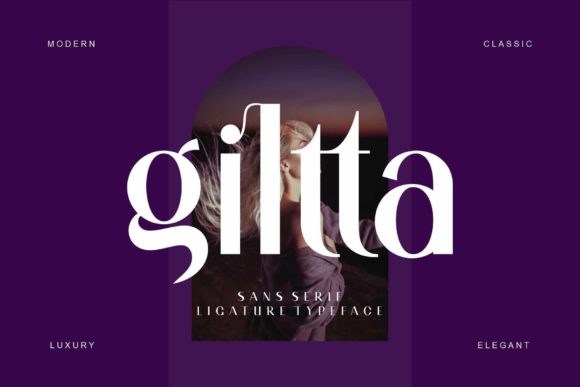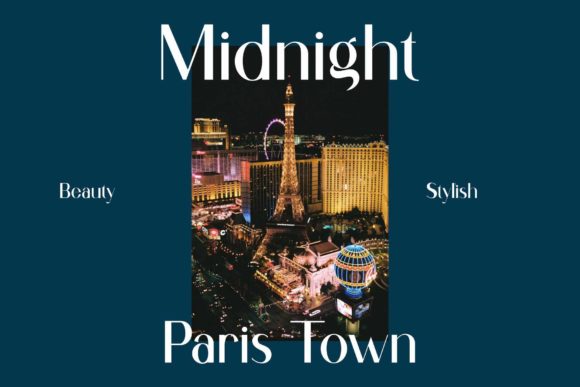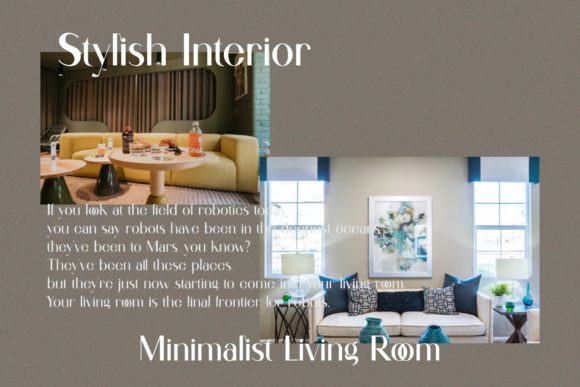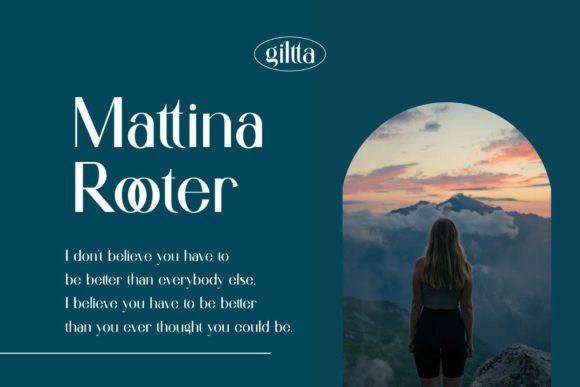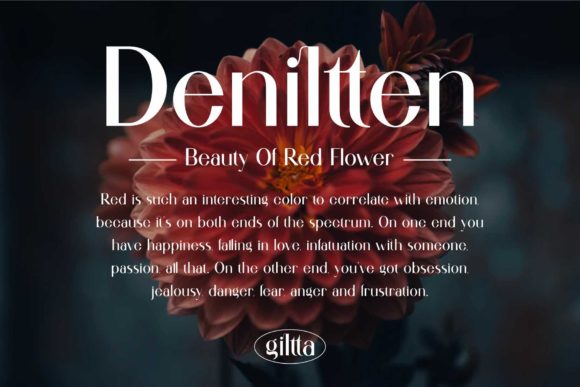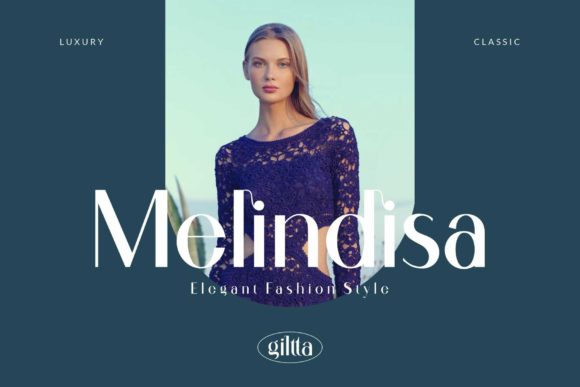
Introduction to Giltta Font
Giltta is an authentic and cool sans serif font.
It can easily be matched to an incredibly large set of formal or informal projects, so add it to your creative ideas and notice how it makes them stand out .
Key Features of Giltta Font
Why Choose Giltta Font?